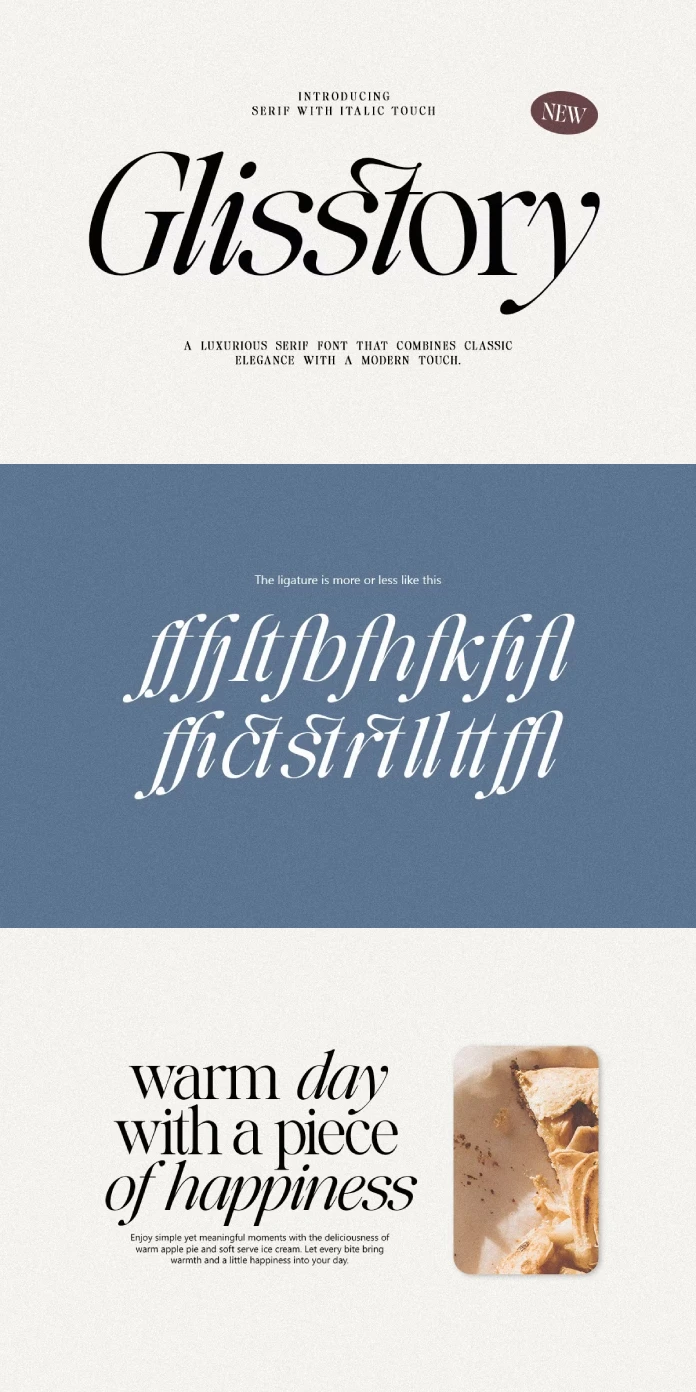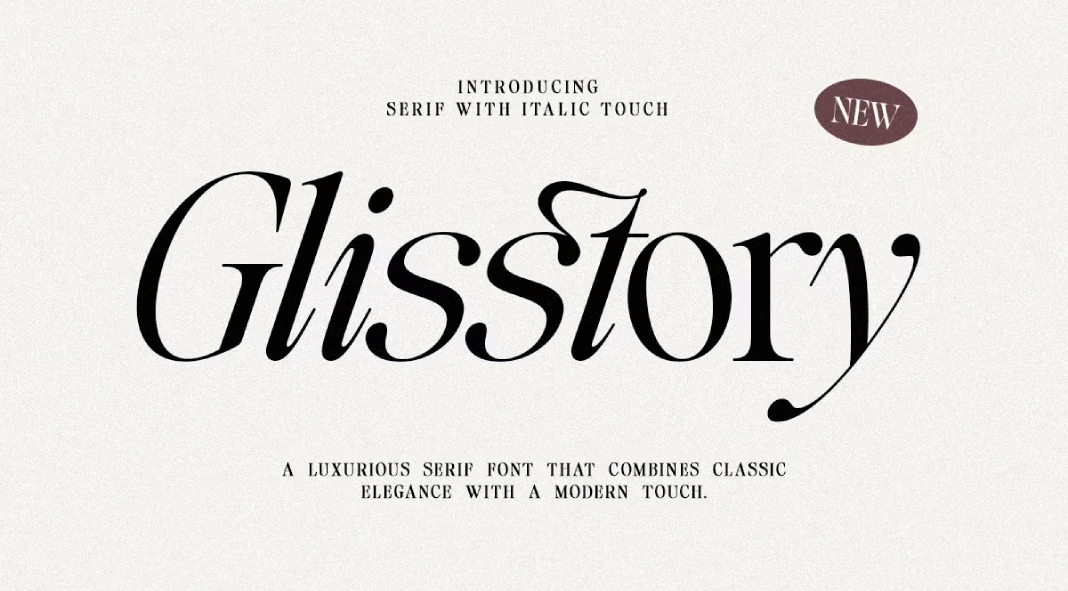
Glisstory Font: The Secret Weapon for Stunning Typography
Designed by Pista Mova, Glisstory is a carefully crafted typeface that can elevate your projects from ordinary to extraordinary. Think about the power of typography. It’s not just about letters on a page (or a screen); it’s about conveying emotion, establishing brand identity, and capturing attention. The Glisstory font understands this implicitly. But what makes this typeface so special, and why should you consider adding it to your design arsenal? Let’s explore the unique qualities of this exceptional typeface.
Understanding the Allure of Glisstory
Glisstory by Pista Mova stands out for its ability to blend classic elegance with modern versatility. The high-contrast strokes and gracefully flowing curves give this font an undeniable sense of luxury. This is a typeface that demands attention without being overly loud or ostentatious. It whispers sophistication rather than shouting it, making it perfect for brands that value refinement and quality.
It is the perfect font for you if you’re looking to create a logo for a high-end fashion brand, design an editorial layout for a luxury magazine, or craft a website that exudes class, Glisstory is a font that can help you achieve your design goals.
Key Features That Make Glisstory Shine
So, what are the specific attributes that make Glisstory such a compelling choice? It’s more than just its overall aesthetic; it’s the attention to detail and the thoughtful design choices that truly set it apart.
- Elegant Design: This is the most obvious point. Glisstory has clean lines, refined proportions, and overall elegant look. It’s a typeface that’s pleasing to the eye and easy to read.
- High Contrast: The high contrast between thick and thin strokes adds a touch of drama and visual interest to the text. It makes the font more dynamic and engaging.
- True Italics: It is an italic that’s designed to complement its upright character perfectly and bring an artistic feel.
- OpenType Features: Glisstory has plenty of OpenType features, such as ligatures and stylistic alternatives, that allow for creativity.
- Multi-Language Support: This font also supports 90 languages, making it perfect for any international businesses.
Where to Use the Glisstory Font?
The beauty of Glisstory lies in its versatility. This isn’t a font that’s limited to a specific niche or industry. Its elegant and sophisticated design makes it suitable for a wide range of applications.
- Luxury Branding and Logos: Glisstory adds a touch of class and sophistication to brand identities. It helps establish a sense of exclusivity and high quality.
- Editorial Design: Perfect for magazines, books, and newspapers that want to convey a sense of elegance and refinement.
- Web and Digital Design: Optimized for clarity and impact on all screen sizes, ensuring readability and visual appeal online.
- Packaging Design: Ideal for product labels, invitations, and other high-end stationery where a touch of sophistication is desired.
Glisstory: A Closer Look at Its Design
Now, let’s take a closer look at some of the design elements that contribute to Glisstory’s overall appeal.
- The Curves: The graceful curves of the characters add a touch of fluidity and visual interest to the text. They make the font feel more organic and less rigid.
- The Serifs: The serifs are carefully crafted to balance elegance and readability. They’re not overly ornate, but they’re present enough to give the font a classic feel.
- The Spacing: The spacing between characters is carefully considered to ensure readability and visual harmony. It prevents the text from feeling too cramped or too spaced out.
- True Italic Perfection: It’s clear that the italic version of the font wasn’t just an afterthought. It was intentionally designed to look natural alongside its upright counterpart.
Making the Most of Glisstory’s Features
But, to fully leverage the power of this typeface, understanding its OpenType features is crucial. Ligatures, for example, can add a unique touch of flair to your typography, while stylistic alternates allow you to customize the font to suit your specific needs.
- Ligatures: Combine two or more characters into a single glyph for a more elegant and seamless look.
- Stylistic Alternates: Offer different versions of certain characters, allowing you to fine-tune the font’s appearance and create unique typographic compositions.
- Swashes: Add decorative flourishes to certain characters, enhancing the font’s overall elegance and visual appeal.
Glisstory in Action: Real-World Examples
Want to see Glisstory in action? Think of high-end fashion magazines using it for headlines, luxury hotels incorporating it into their logos, or elegant wedding invitations featuring its graceful curves. These are just a few examples of how Glisstory can be used to elevate design projects and create a lasting impression.
Final Verdict: Glisstory – An Investment in Timeless Design